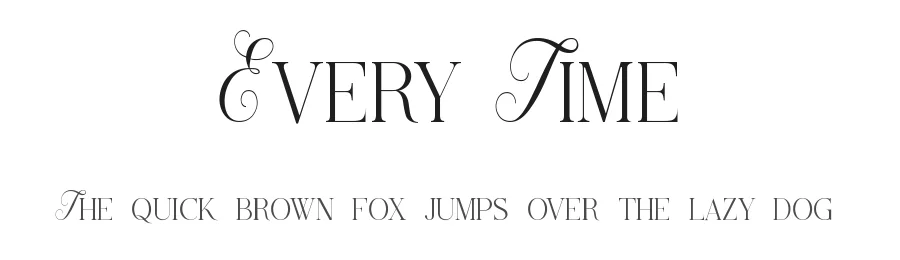
About Angel Bilsh Font
AngeL BilsH by Nirmana Visual,
Angel Bilsh Font is a decorative font that shines as a display or heading face. Pair it with a clean sans-serif or serif font for body text β the contrast creates a clear hierarchy while the two styles stay balanced and easy to read.